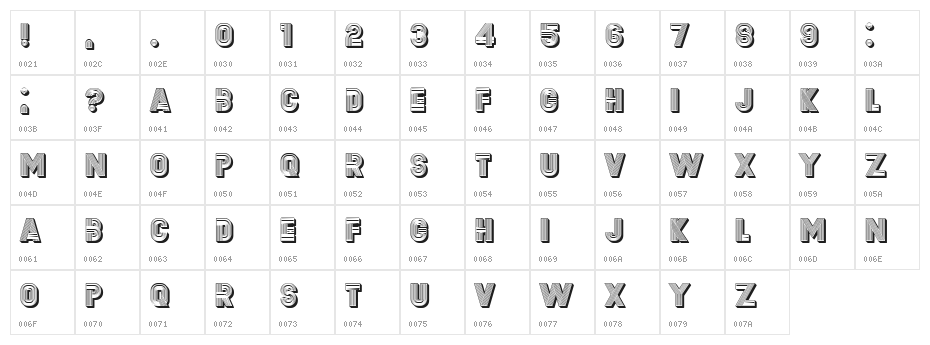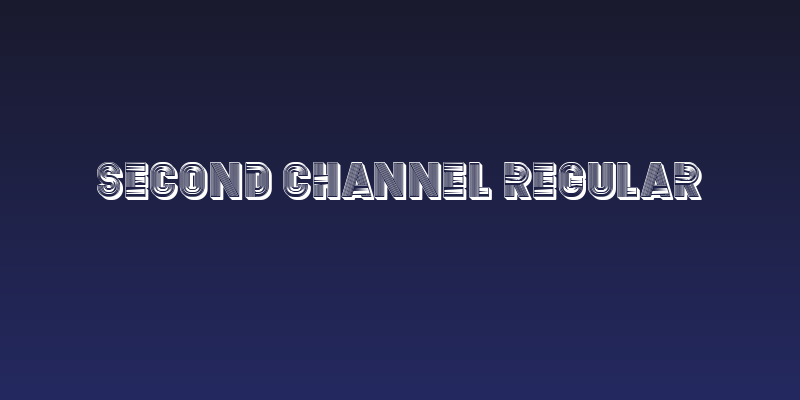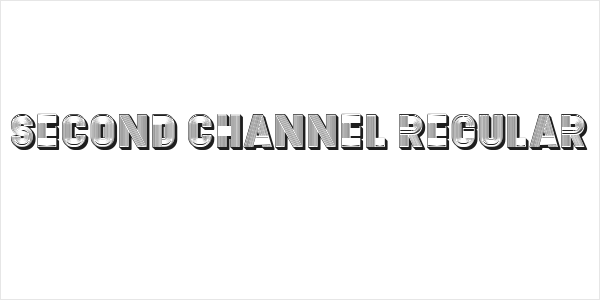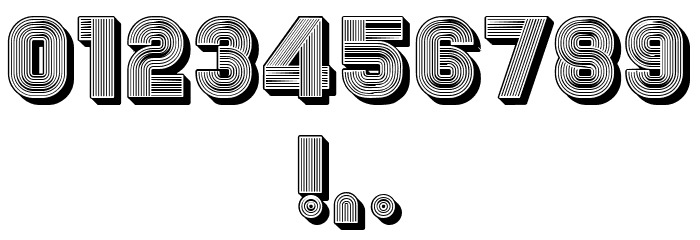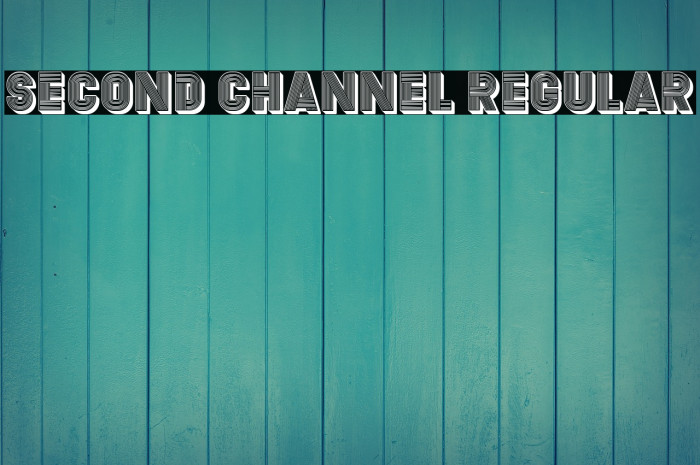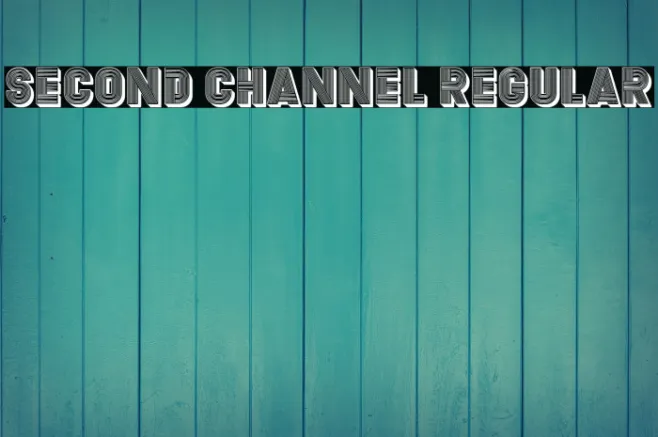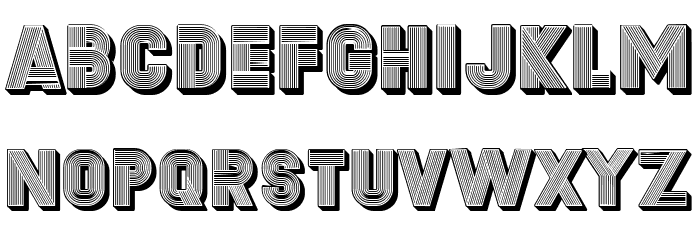
Second Channel Regular Font
This font features a bold, decorative style with a unique layered effect that creates a sense of depth and dimension. Each character is composed of multiple parallel lines, giving it a striped appearance that is both modern and eye-catching. The uppercase and lowercase letters maintain a consistent design, with the numbers and special characters following suit. This font's intricate design makes it ideal for projects that require a standout, artistic touch. The overall aesthetic is both playful and sophisticated, making it suitable for a variety of creative applications.